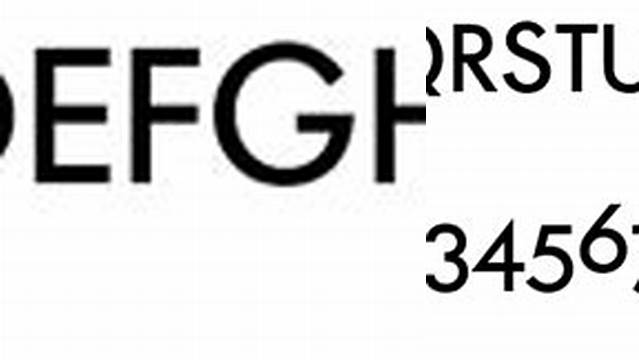
Hey guys! Let's dive deep into the world of fonts, specifically the Futura No 2 Small Caps Medium Font. This font is a classic, and understanding its nuances can significantly enhance your design projects. We'll cover everything from its history and characteristics to where you can find it and how to use it effectively. So, buckle up and get ready for a font-tastic journey!
What is Futura No 2 Small Caps Medium?
Futura No 2 Small Caps Medium is a geometric sans-serif typeface that exudes simplicity and modernity. Designed by Paul Renner in 1927, Futura is based on geometric shapes, making it highly legible and visually appealing. The 'No 2' designation typically refers to a specific version or revision of the Futura font family, often indicating subtle modifications to the original design. The 'Small Caps' feature means that lowercase letters are replaced by uppercase letters set at a smaller size, providing a sophisticated and clean aesthetic. The 'Medium' weight strikes a balance between light and bold, making it versatile for various applications.
When we talk about Futura, we’re really talking about a typeface that’s stood the test of time. Its clean lines and geometric forms make it incredibly readable, whether you’re using it for body text or headlines. The Small Caps variant adds a touch of elegance and formality, perfect for projects that need a refined look. Think about using it in corporate documents, branding materials, or even editorial design. The Medium weight ensures that the font is neither too overpowering nor too subtle, fitting just right in a multitude of contexts. It's like the Goldilocks of font weights – just right!
The beauty of Futura lies in its versatility. Because it’s a sans-serif font, it lacks the small decorative strokes (serifs) that you find in fonts like Times New Roman or Garamond. This gives it a more contemporary feel, making it ideal for modern designs. The geometric construction, with its perfect circles and straight lines, lends a sense of order and precision. Using Futura No 2 Small Caps Medium can elevate your work, giving it a professional and polished finish. Whether you're designing a website, creating a logo, or putting together a presentation, this font can help you achieve a sleek and modern look that grabs attention.
Key Characteristics
- Geometric Design: Based on simple shapes like circles and triangles.
- Sans-Serif: Lacks decorative serifs, offering a clean look.
- Small Caps: Lowercase letters are replaced by smaller uppercase letters.
- Medium Weight: A balanced weight suitable for various applications.
- High Legibility: Easy to read in both print and digital formats.
The History of Futura
The history of Futura is as fascinating as the font itself. Designed in the late 1920s by Paul Renner, Futura emerged during the Bauhaus movement, which emphasized simplicity, functionality, and geometric forms. Renner aimed to create a typeface that reflected these principles, resulting in a font that was both modern and timeless. Futura quickly gained popularity and became a staple in graphic design, advertising, and typography.
Renner’s vision was to strip away unnecessary ornamentation and create a font that was purely functional and aesthetically pleasing. He drew inspiration from the geometric shapes that were central to the Bauhaus philosophy. The result was a typeface that was revolutionary for its time. Its clean lines and lack of serifs made it stand out from the more traditional typefaces that were prevalent at the time. Futura’s impact on the design world was immediate and profound. It became the go-to font for many designers who were looking to create a modern and sophisticated look.
Over the years, Futura has been used in countless iconic designs. From logos and posters to books and magazines, its versatility has made it a favorite among designers across various disciplines. Its enduring appeal lies in its ability to convey a sense of clarity and precision. Whether you're using it for a bold headline or a block of body text, Futura maintains its legibility and visual impact. It’s a testament to Renner’s genius that a font designed nearly a century ago still feels fresh and relevant today. The font has been adapted and reinterpreted in many ways, but the core principles of its design remain the same. Its legacy continues to inspire designers to this day, making it one of the most important typefaces in the history of graphic design.
Timeline
- 1927: Futura is designed by Paul Renner.
- 1930s: Gains popularity in Europe and North America.
- Mid-20th Century: Used extensively in advertising and branding.
- Late 20th Century: Remains a popular choice for modern designs.
- 21st Century: Continues to be used in digital and print media.
Finding Futura No 2 Small Caps Medium for free can be a bit tricky, as it is a premium font. However, there are some legitimate ways to access it or similar fonts without breaking the bank. One option is to explore font websites that offer free trials or limited-time access to their font libraries. Another approach is to look for free fonts that closely resemble Futura, such as Montserrat or Century Gothic, which share similar geometric characteristics.